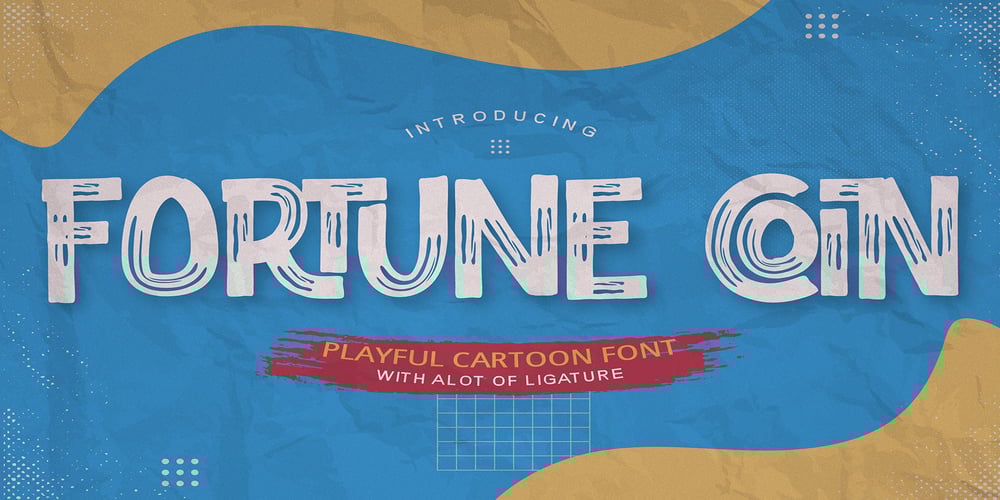
Fortune Coin Font Family was designed by Abdul Malik Wisnu, Anang Fibriyanto and published by Gassstype. Fortune Coin contains 1 styles and family package options. Fortune Coin is a Cartoon Display Font with alot of ligature. it will make your designs look modern, unique and fun.It’s perfect for labels, quotes, posters, DIY projects, branding, packaging, greeting cards, websites, photography overlays, signs, window art, scrapbooking, tags and so much more!